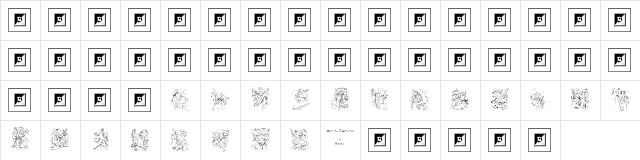
Batman and Company Regular
Design Context for Batman and Company Typeface
Batman and Company is a composed and adaptable typeface that performs quietly and consistently across a wide range of design contexts.